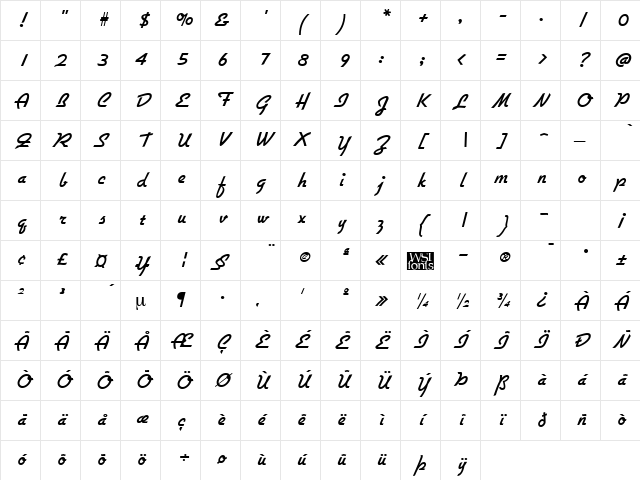
Gallante Regular Free Font
Gallante Regular
Gallante Family
Design Context for Gallante
Gallante is a composed and adaptable typeface that performs quietly and consistently across a wide range of design contexts.